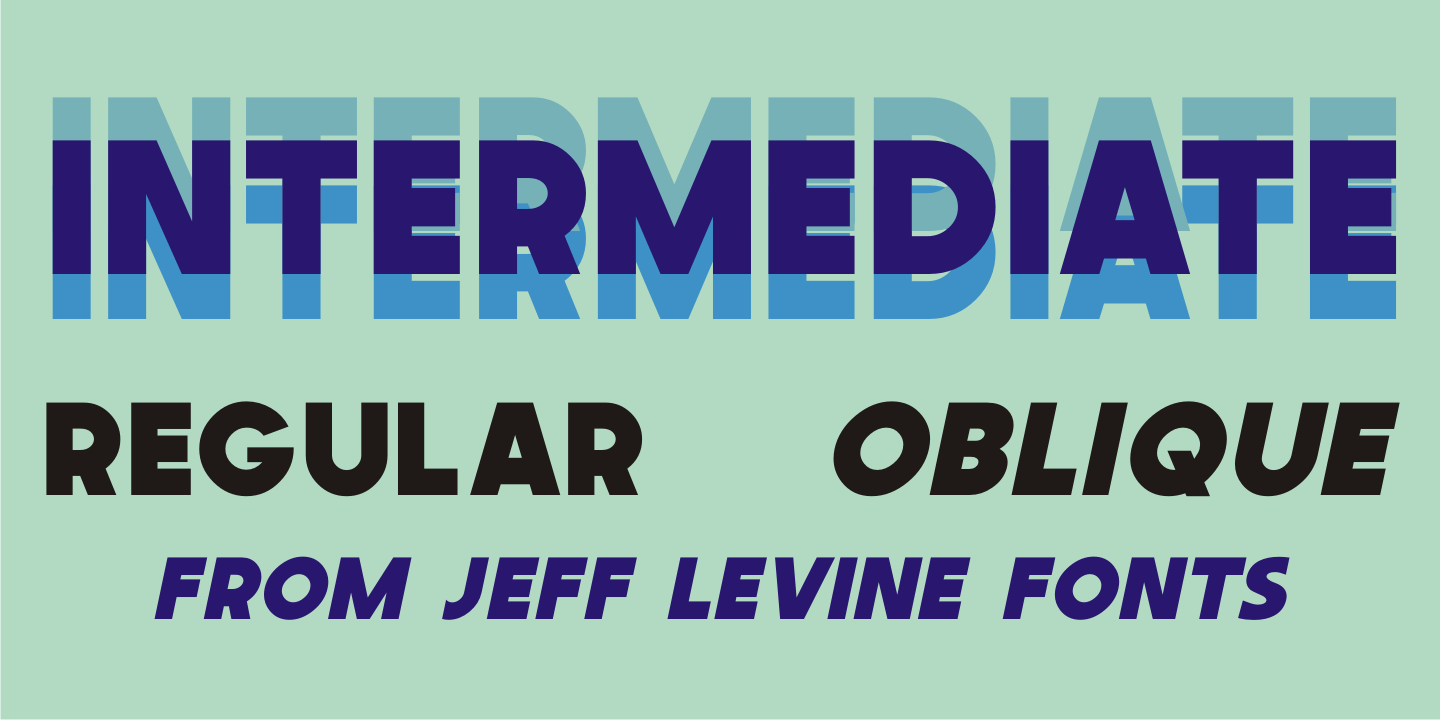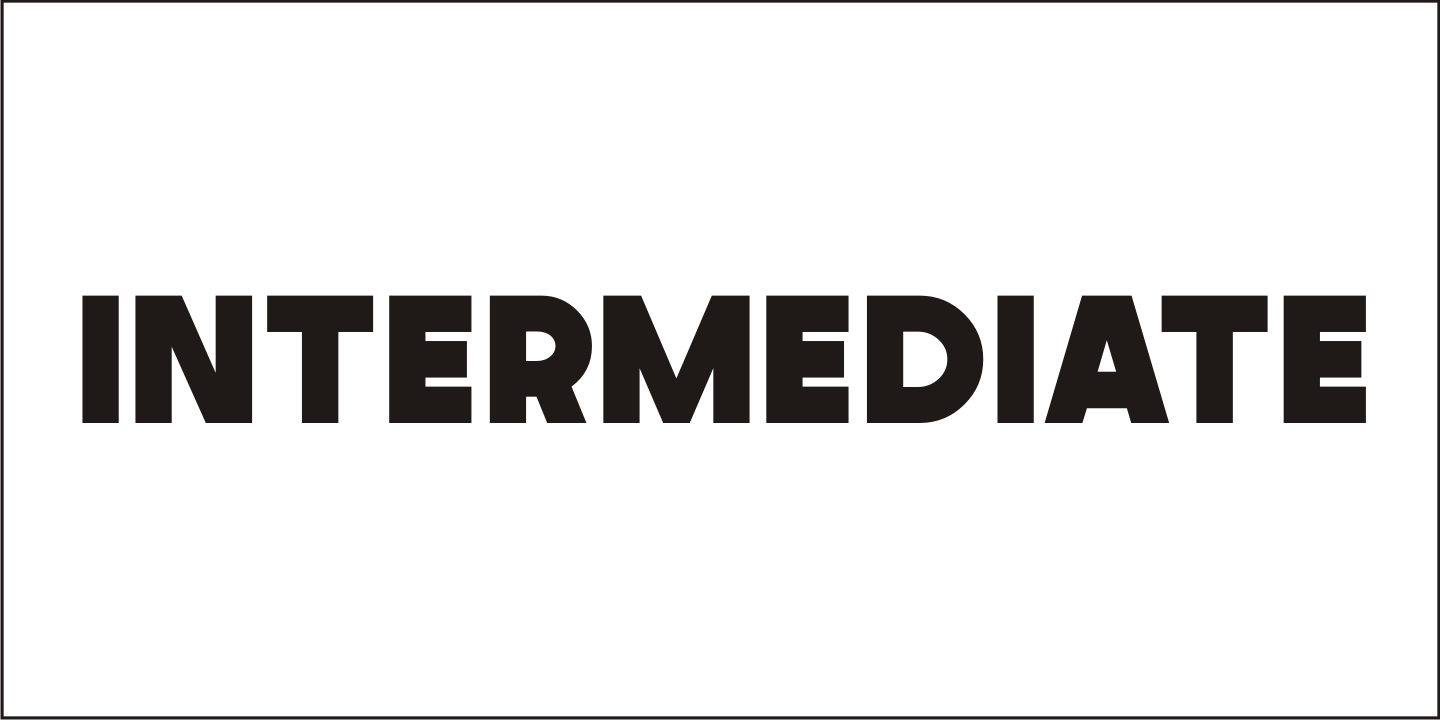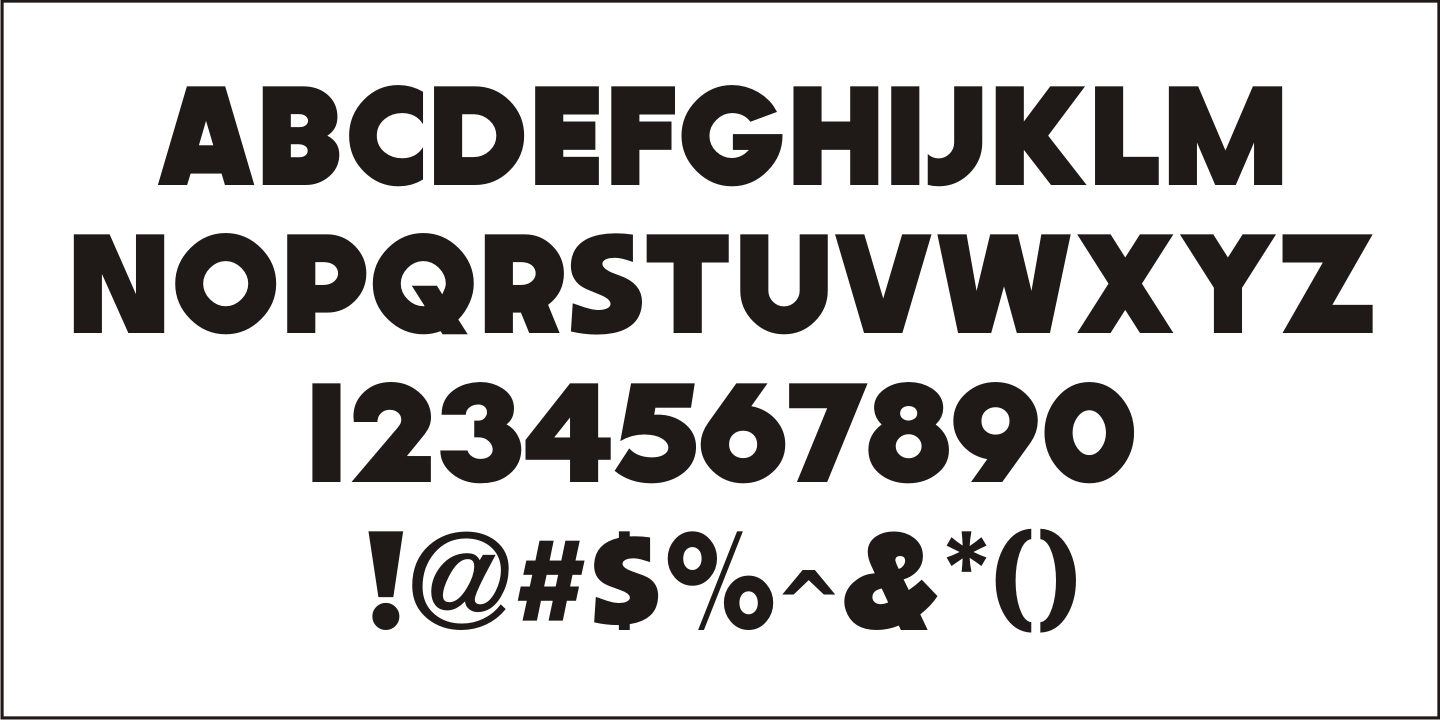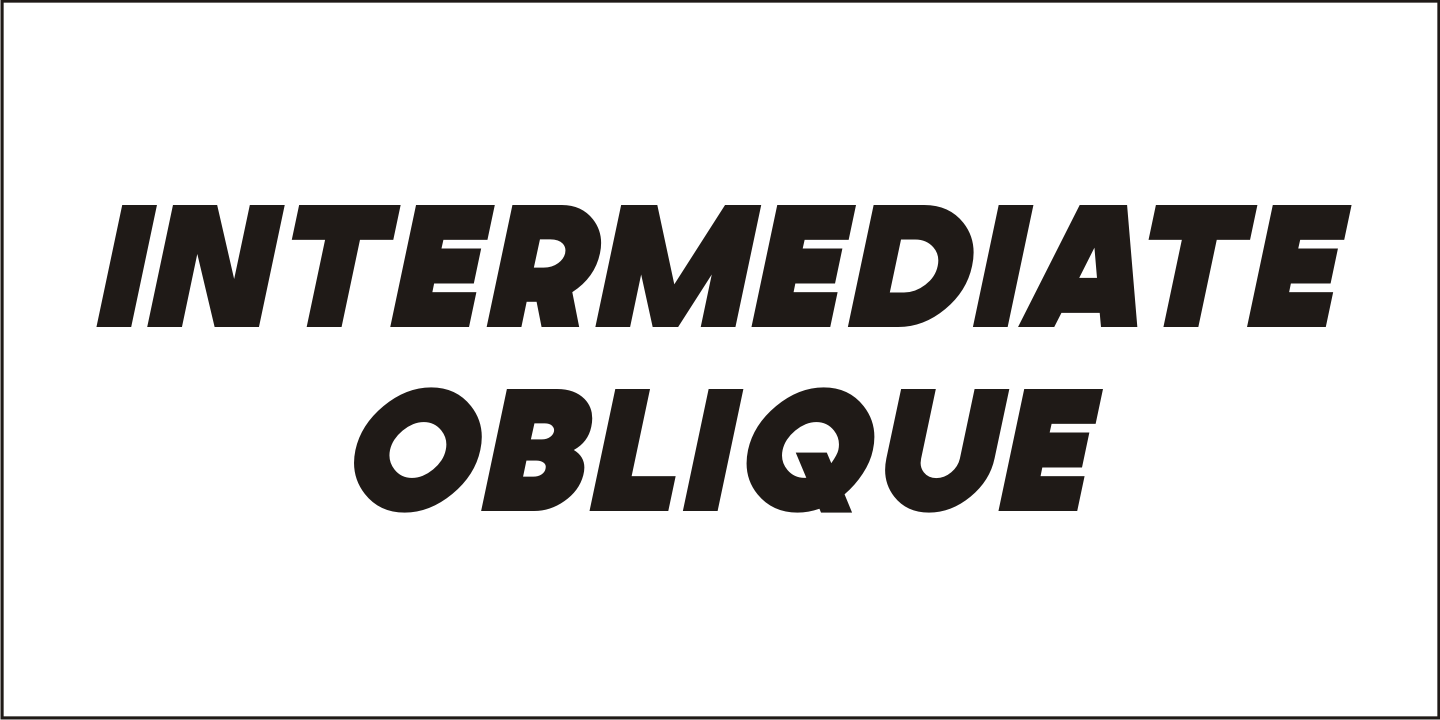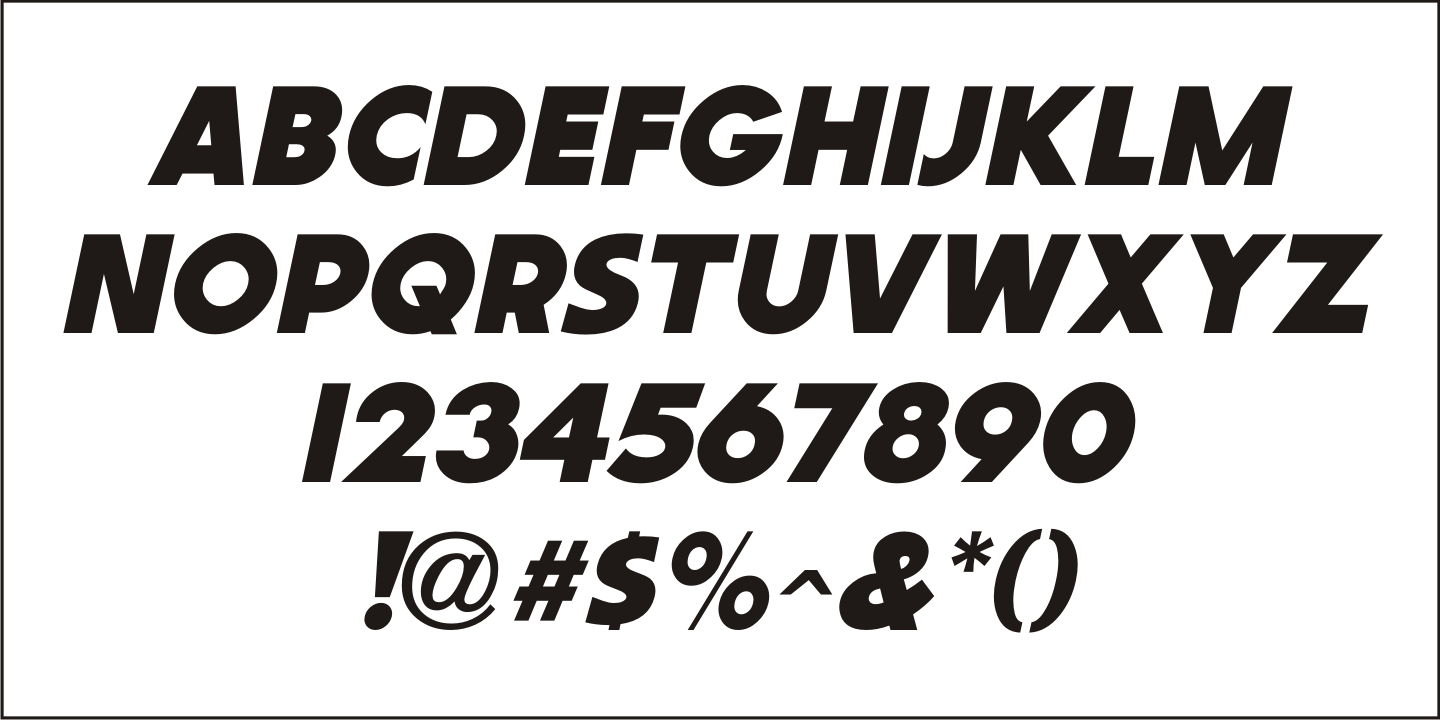
Intermediate
A font based on a font.
The letters and numbers of a home movie titling kit from circa 1950s or 1960s called the Magna Tech Titler Number 312 were die-cut from cardboard with a magnetic backing and styled after Futura Bold.
The user of this set composed the desired title or phrase onto a metalized board and the result was photographed with their 8 or 16mm camera.
Because the dies of the characters were handmade, very slight variations in the shape and stroke width of the lettering would occasionally occur. These variations were incorporated in the design of the digital type face.
Intermediate JNL is available in both regular and oblique versions.